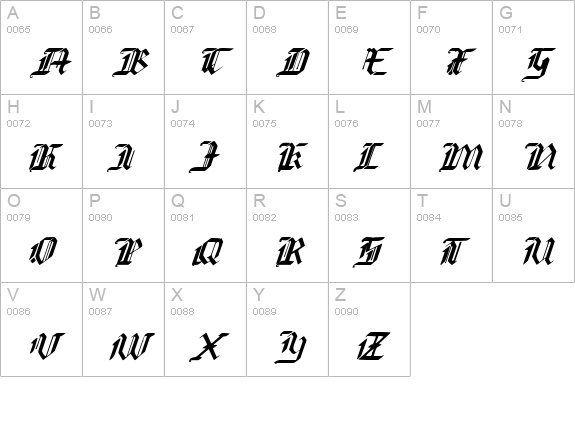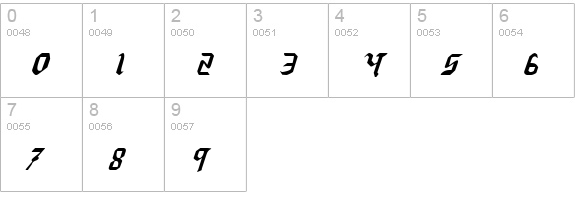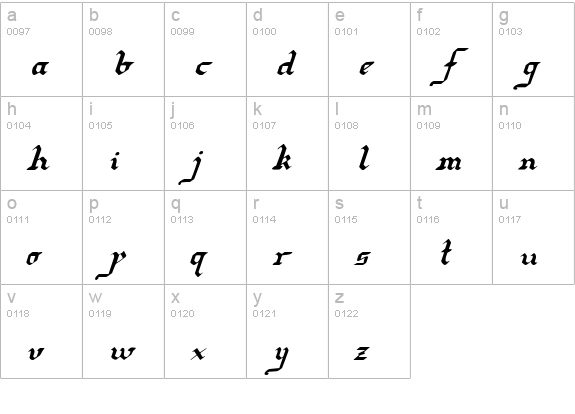
Redcoat Italic is a distinctive, italic variant in the Redcoat typeface family \xE2\x80\x94 well suited to design and typography projects.
Redcoat Italic font exudes elegance and sophistication with its sleek and stylish design. The italicized letterforms add a touch of modern flair while maintaining a sense of timeless charm. Perfect for adding a touch of class to invitations, branding materials, and editorial design projects, this font is sure to make a bold statement. Best of all, Redcoat Italic font is available for free download at FontsMarket.com. Whether you're a seasoned designer looking to expand your font collection or a novice in need of a versatile typeface, this font is a must-have addition to your toolkit. Don't miss out on the opportunity to enhance your projects with the beauty and versatility of Redcoat Italic font – download it for free today!